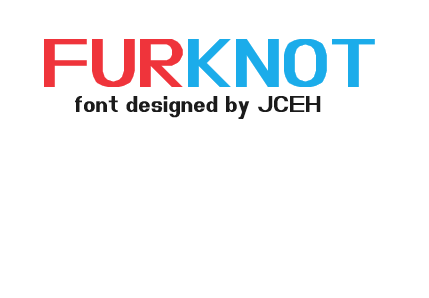
Good font. The lower case x is too wide, too slanted or not thick enough.
@jonrgrover - Thanks, and I fixed the X and V, and added an alternate Z in Variation Selectors
There is the Private Use Area block as the Variation selectors are considered to be format/control characters.
@BWM - I removed the Variation Selectors glyph Z and added numbers in the basic latin
Also, I fixed all of the glyphs